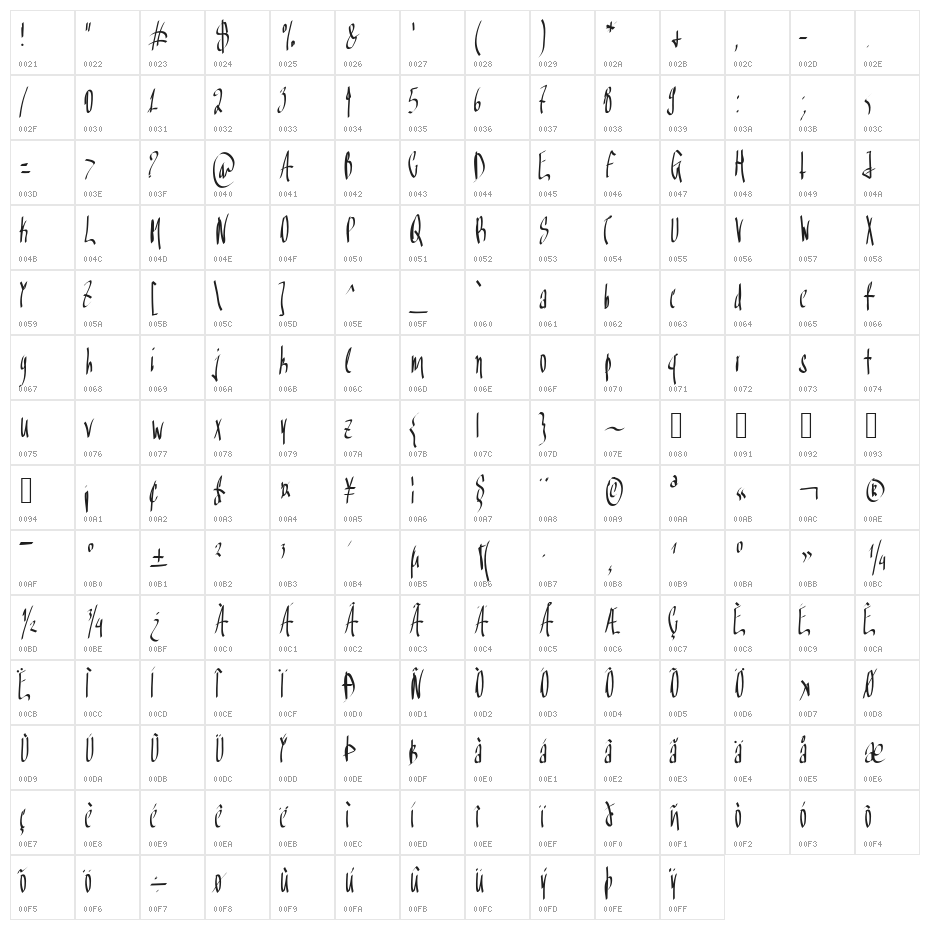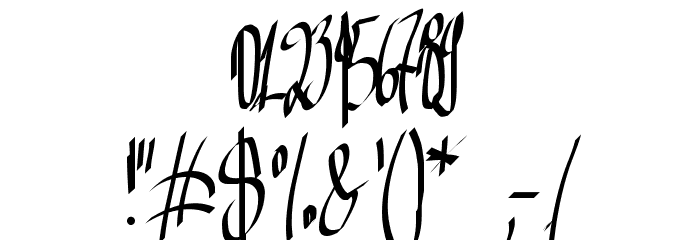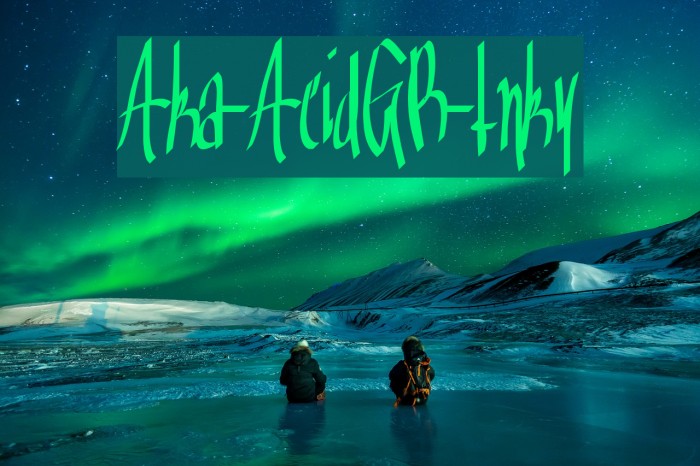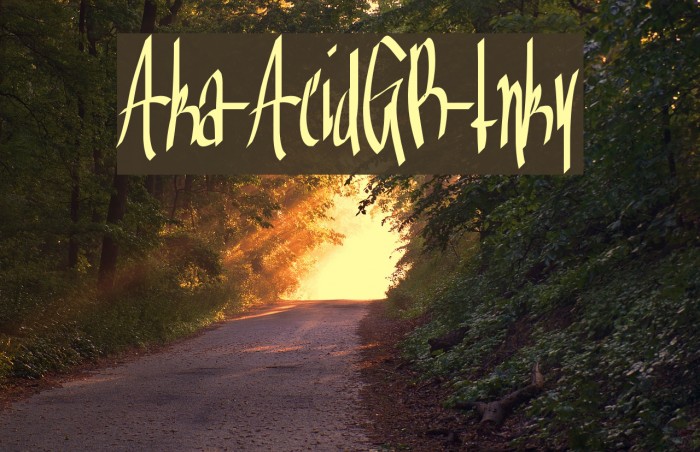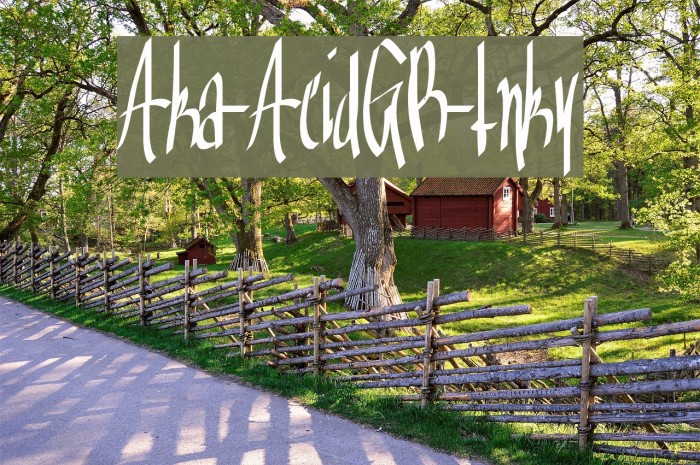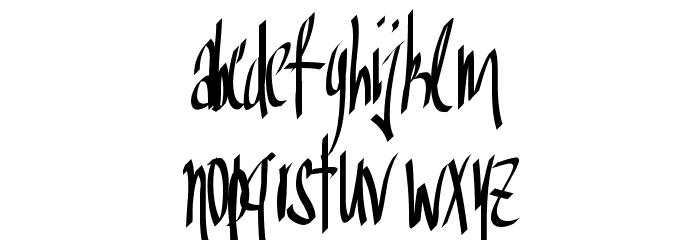
Aka-AcidGR-Inky Font
Aka-AcidGR-Inky Description
This font features a dynamic and expressive style, characterized by its sharp, angular strokes and a hand-drawn appearance. The letters exhibit a high level of energy, with varying line thicknesses that create a sense of movement and fluidity. The uppercase letters are bold and commanding, while the lowercase letters maintain a consistent flow, enhancing the overall aesthetic. Numbers and special characters are crafted with the same artistic flair, making them stand out. This font's unique style is reminiscent of graffiti or street art, offering a modern and edgy look.
| Use Case | Logos, Headlines, Posters |
| Proposed Projects | Ideal for urban-themed designs, streetwear branding, music album covers, and edgy posters. |